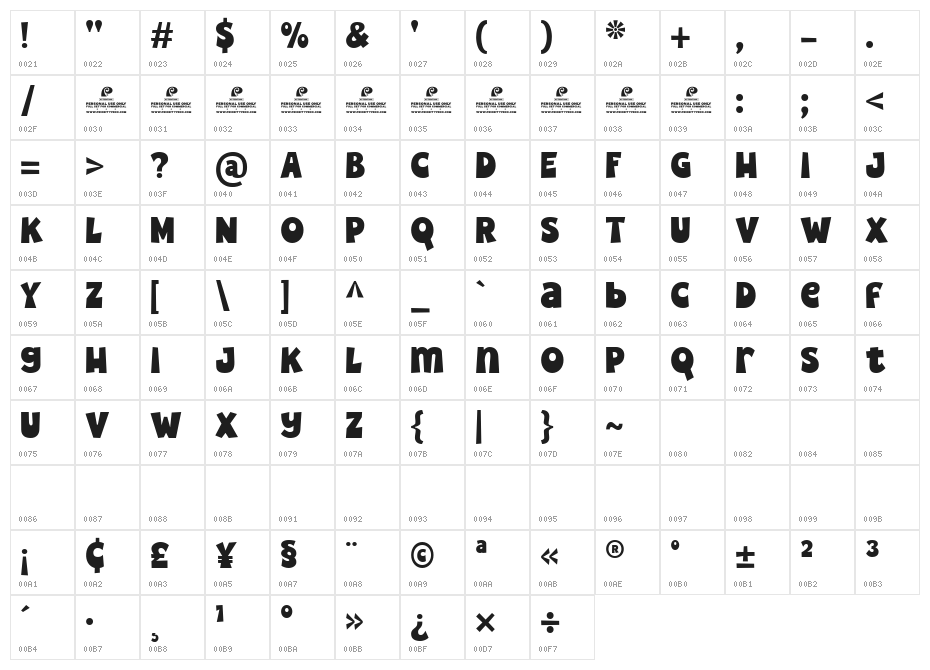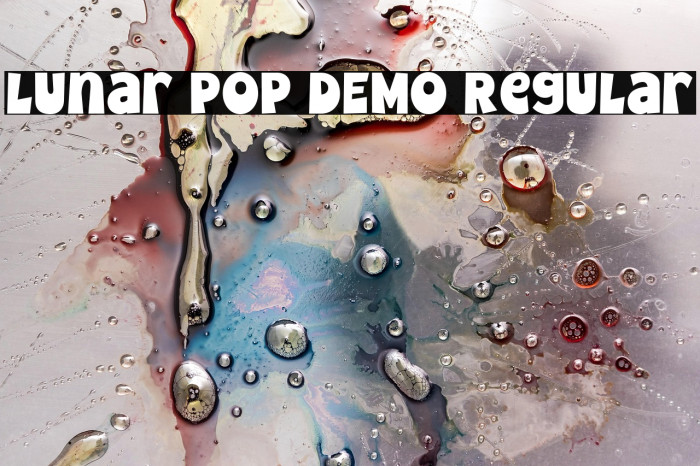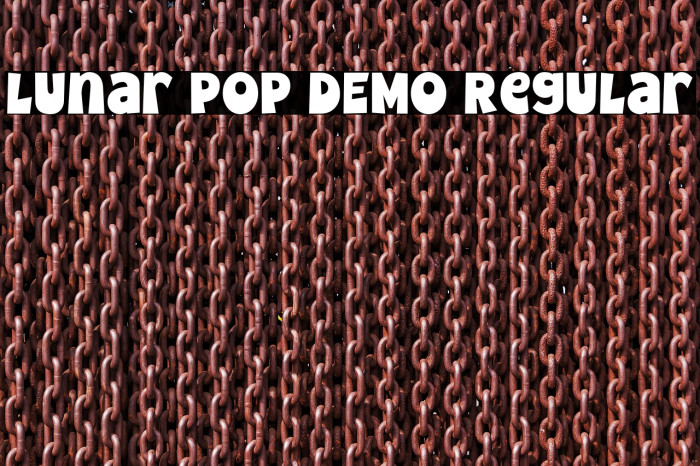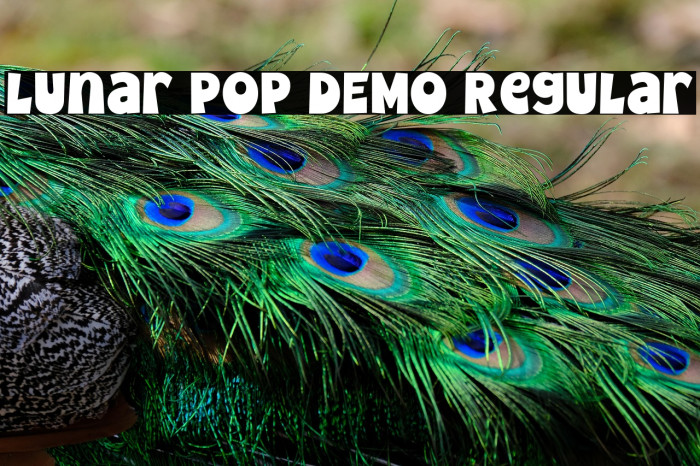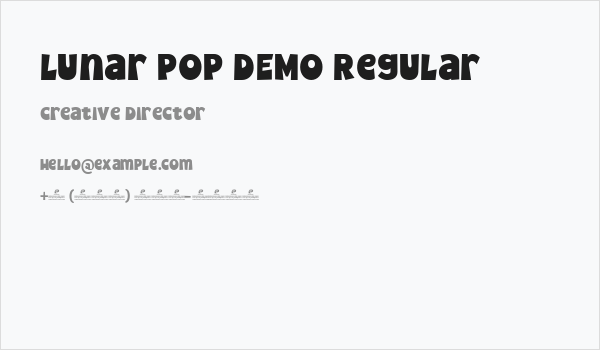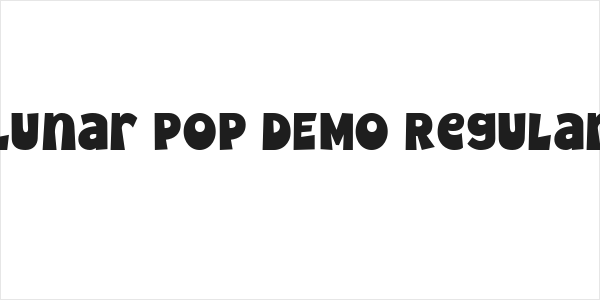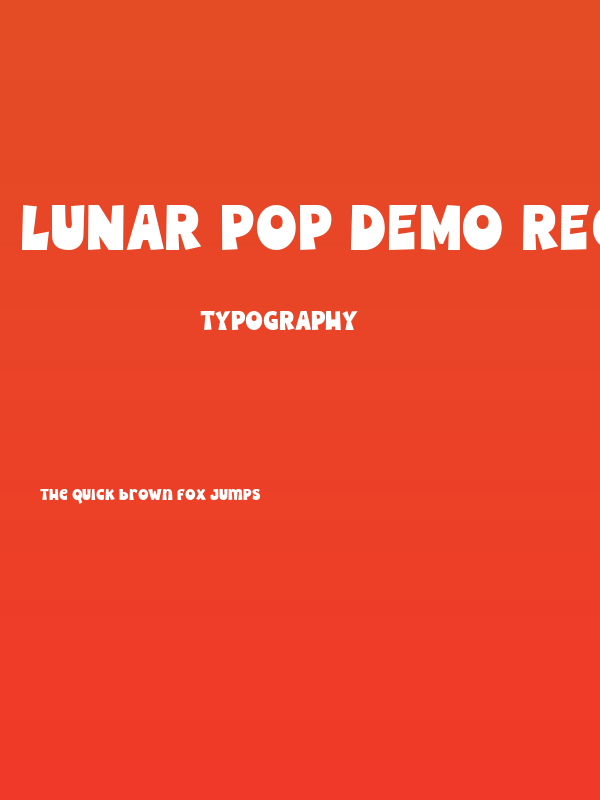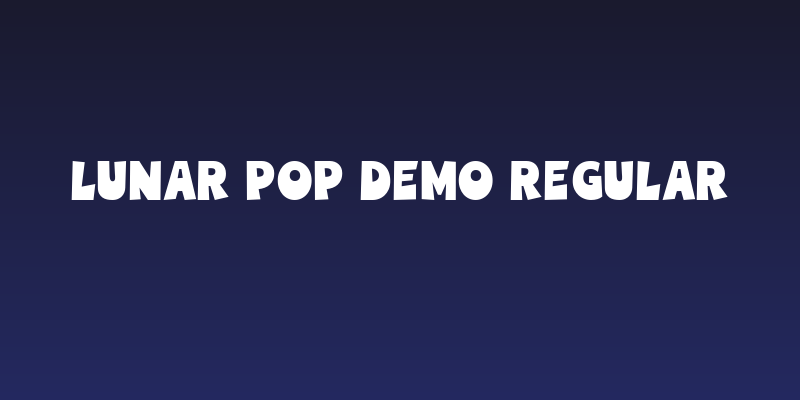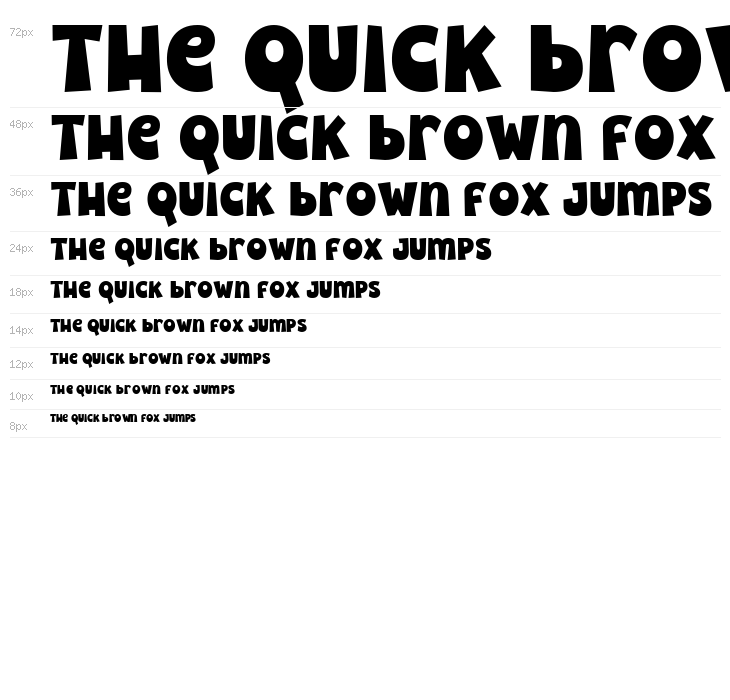
Lunar Pop DEMO Regular Font
Lunar Pop DEMO Regular Description
This font features a playful and bold design, characterized by its thick, uneven strokes and quirky, exaggerated shapes. The letters have a cartoonish and lively appearance, with a slightly irregular baseline that adds to its whimsical charm. The uppercase and lowercase letters maintain a consistent style, with rounded edges and a sense of movement. The numbers and special characters follow the same playful aesthetic, making the font suitable for creative and informal applications. The overall look is dynamic and eye-catching, perfect for projects that require a fun and engaging visual impact.
| Overall Style | Playful, Cartoonish |
| Proposed Projects | Ideal for children's books, comic strips, party invitations, and playful branding. |